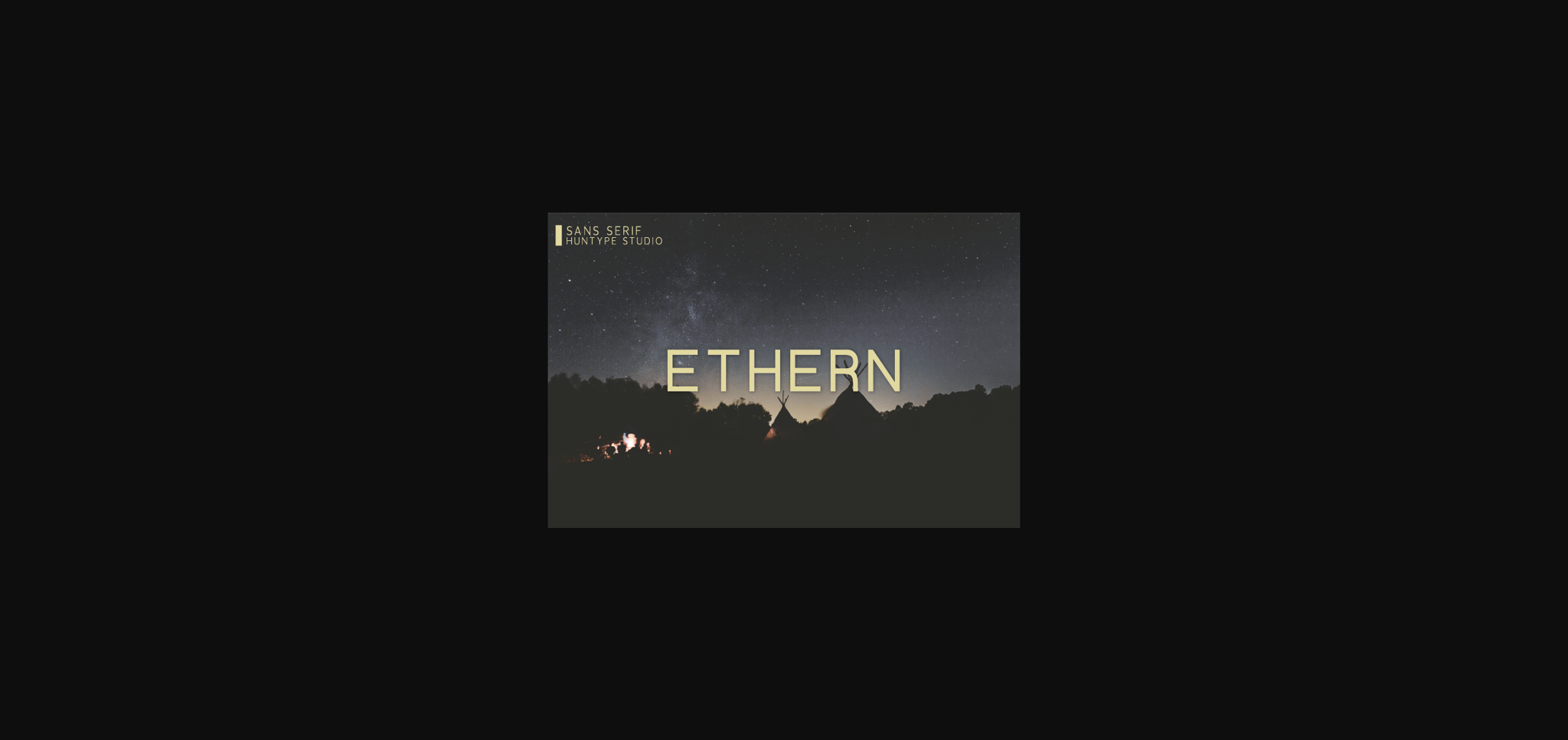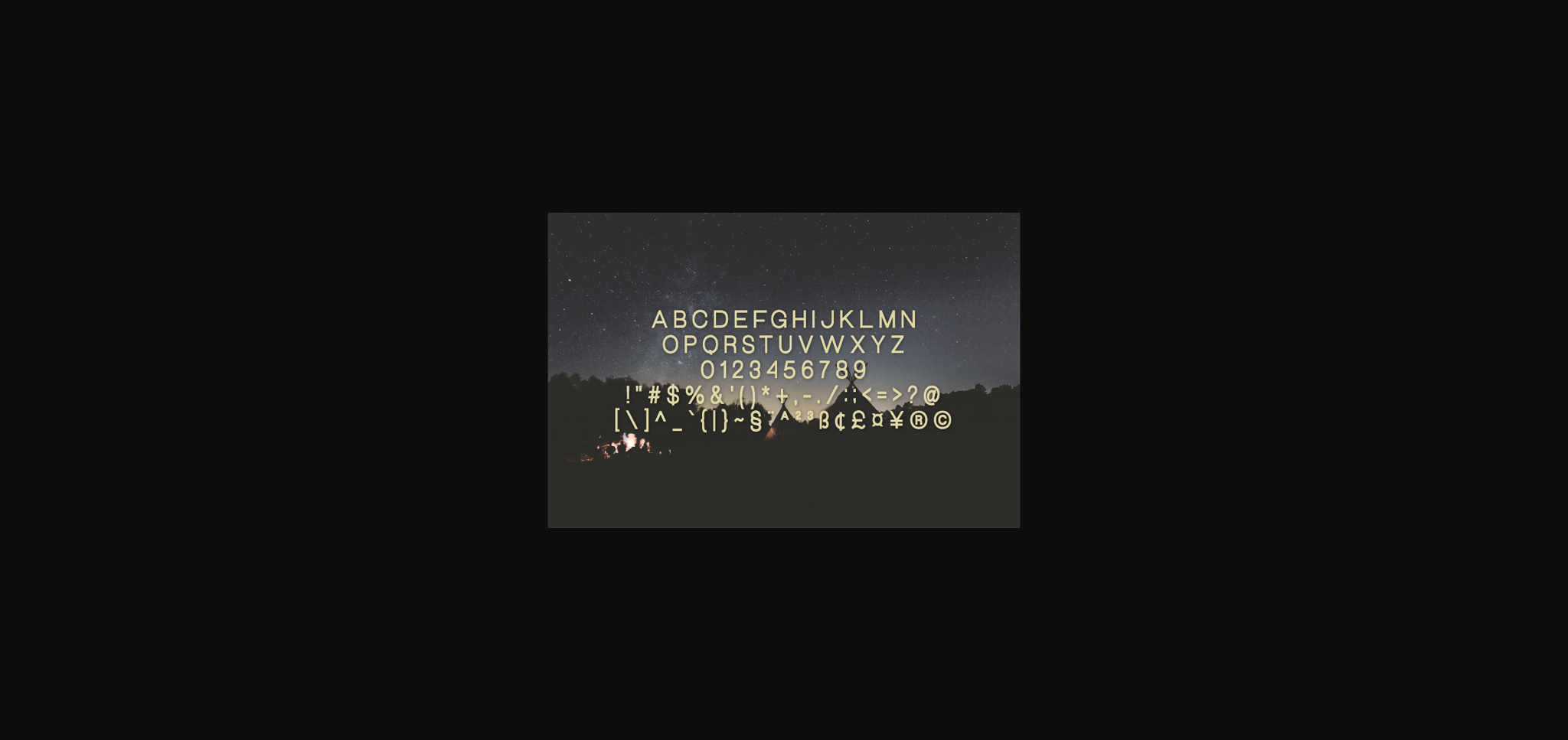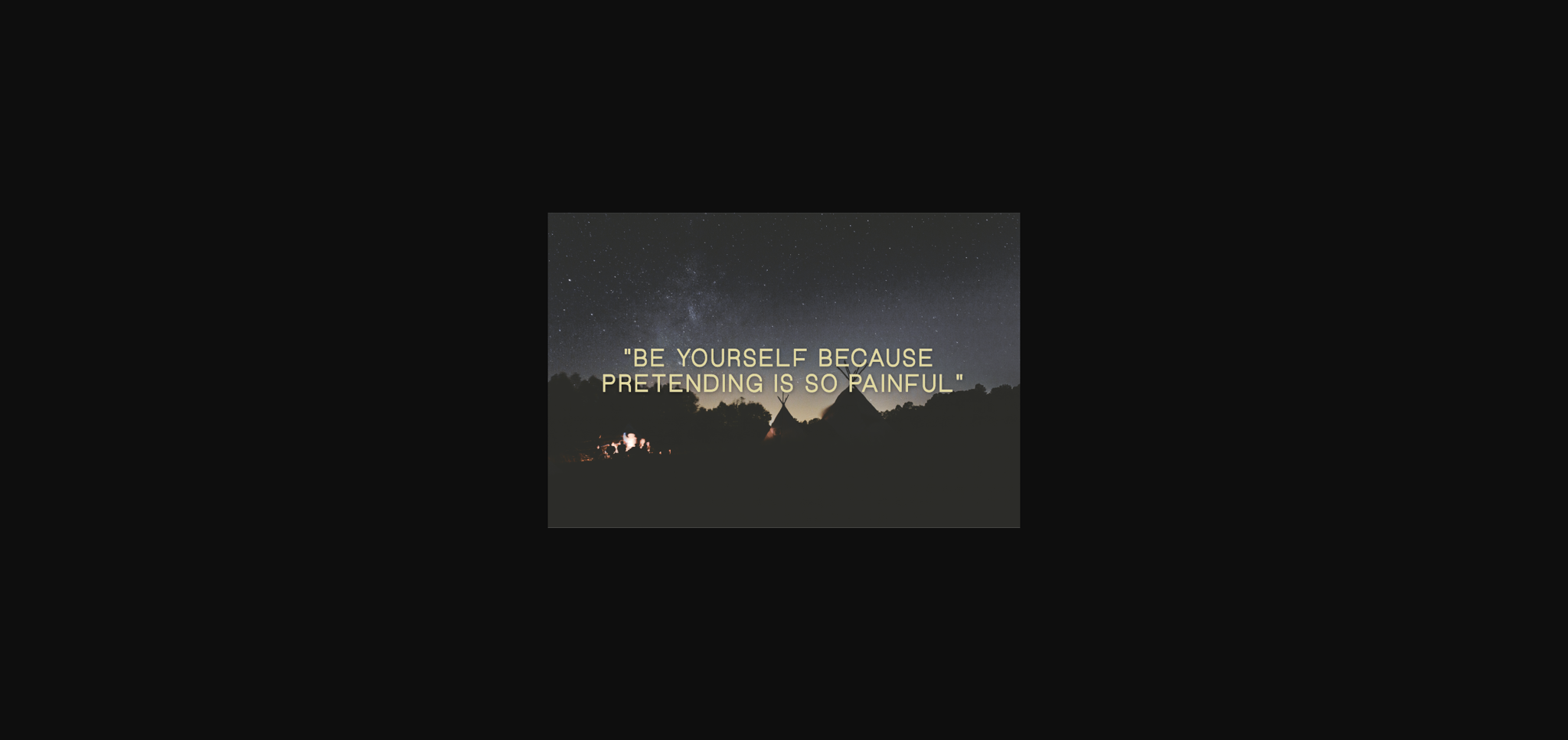
Ethern Font
About Ethern Font
Ethern is an authentic and simple sans serif font. It has a clean, thin and smooth vibe and it will be a hit for any design that you want to add it to.